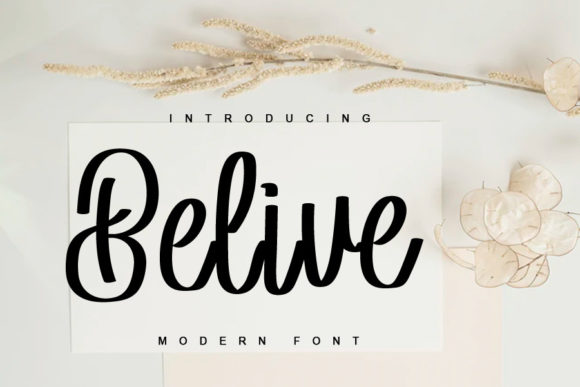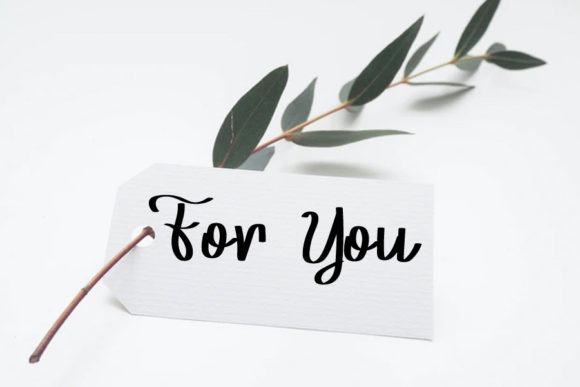
About Belive Font
BeliveĀ is a sweet, delicate and flowing script font. Featuring characters that dance along the baseline, this font will add a luxury spark to any design project that you wish to create!